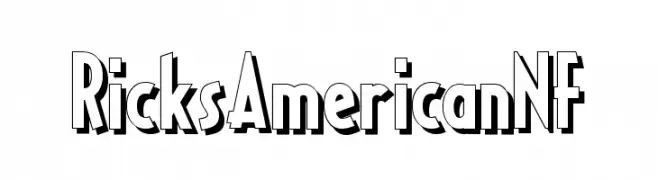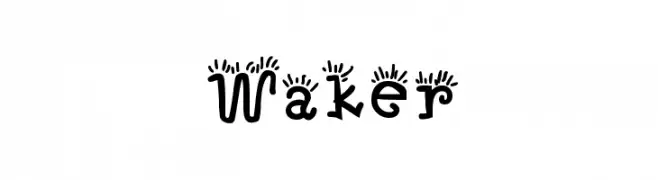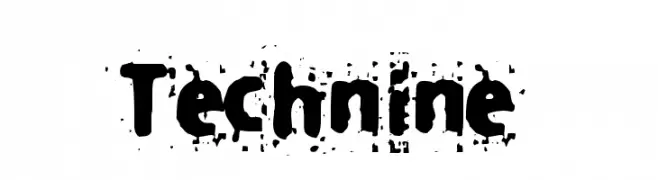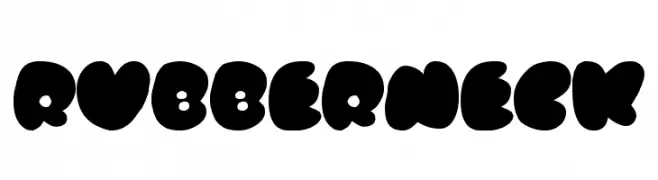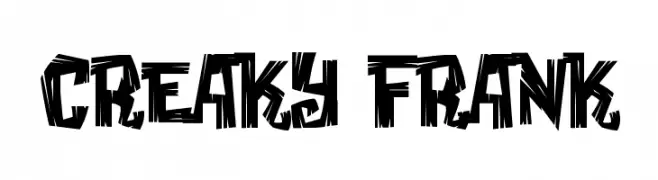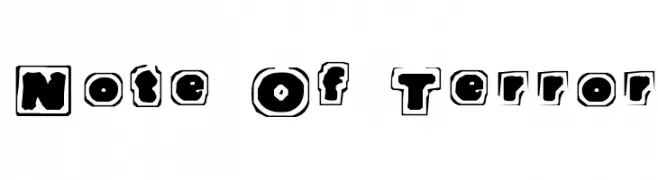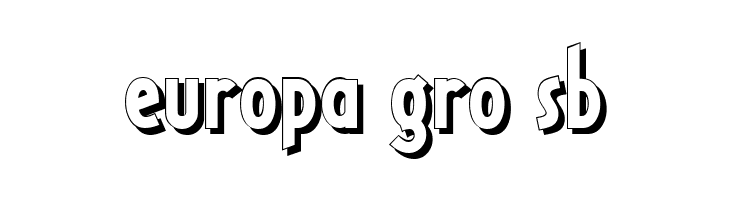
A bold, 3D-effect font with strong shadows and uniform width.
( Fonts by Clearlight Fonts - Brad Barham )
A bold, distressed font with a rugged, grunge aesthetic.
A bold, playful font with thick, rounded characters and a whimsical style.
( Fonts by Greg Meronek - GregoryFonts )
A classic serif font with elegant curves and strong stroke contrasts.
( Fonts by www.fontdiner.com )
A bold, jagged font with a distressed, graffiti-like style.
( Fonts by Mr Fisk - Mike Larsson - fontorama.net )
A bold, playful font with outlined characters and a comic book style.